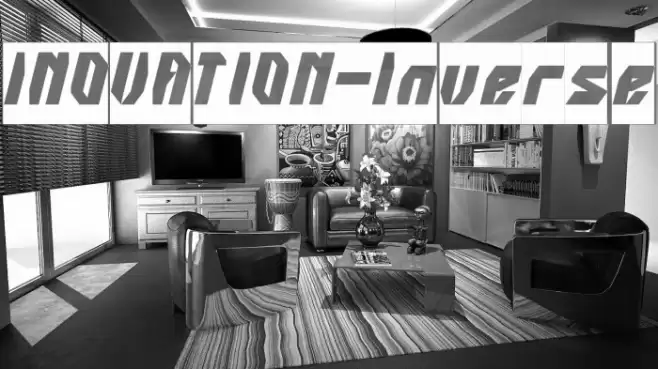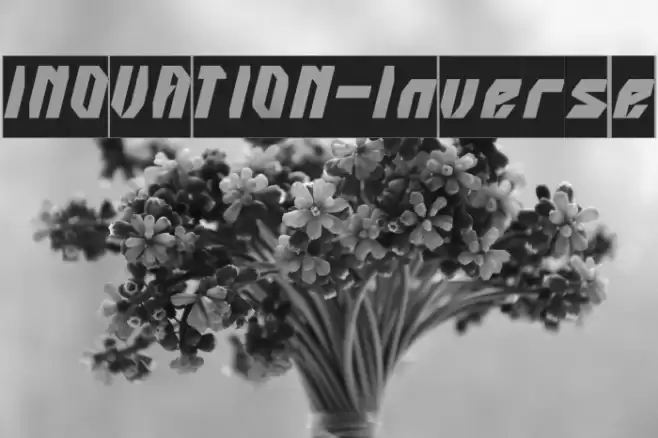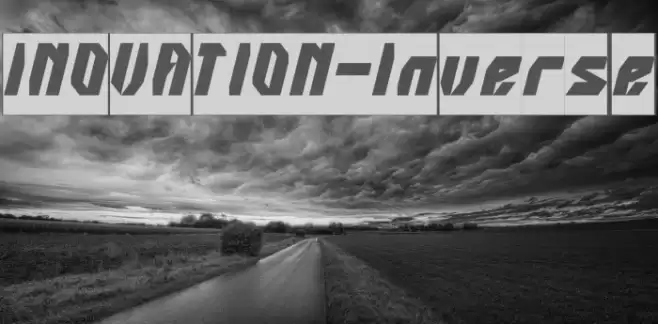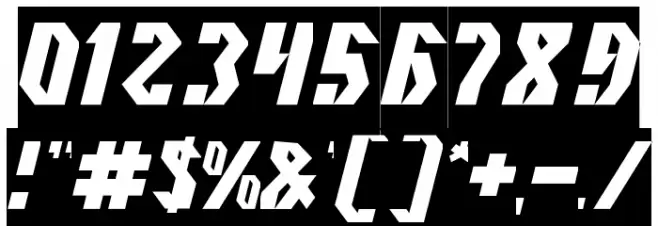
INOVATION-Inverse Font
INOVATION-Inverse Description
This font features a bold and dynamic design with sharp, angular edges and a futuristic aesthetic. The characters are crafted with a distinct slant, giving them a sense of motion and energy. The uppercase and lowercase letters maintain a consistent style, with strong geometric shapes and a uniform stroke width. The numbers and special characters are equally striking, complementing the overall design. This font's unique style makes it ideal for projects that require a modern and edgy look.
A bold, angular font with a futuristic and dynamic style from Uncategorized fonts.
- Proposed Projects: Ideal for branding, posters, video game titles, and sci-fi themed projects.
- Overall Style: Futuristic